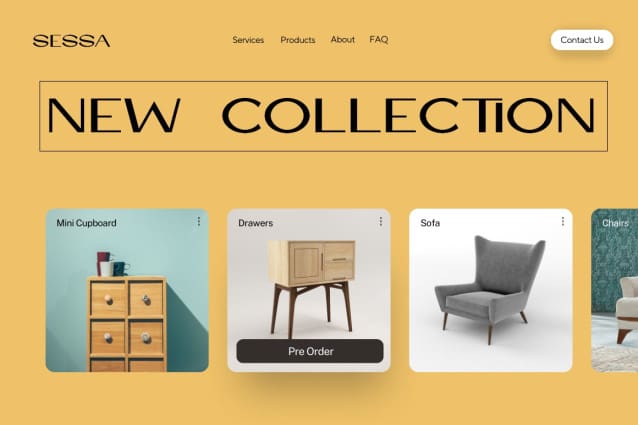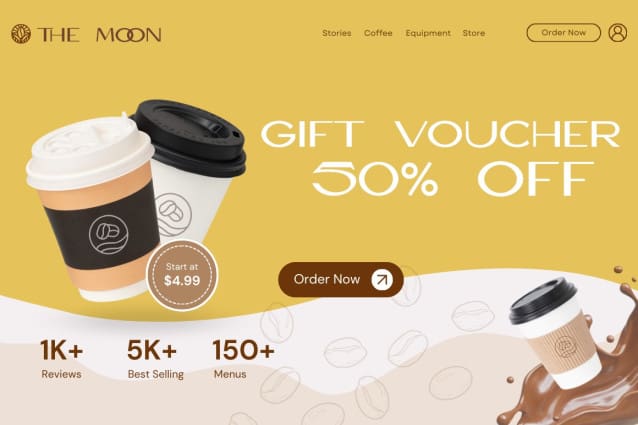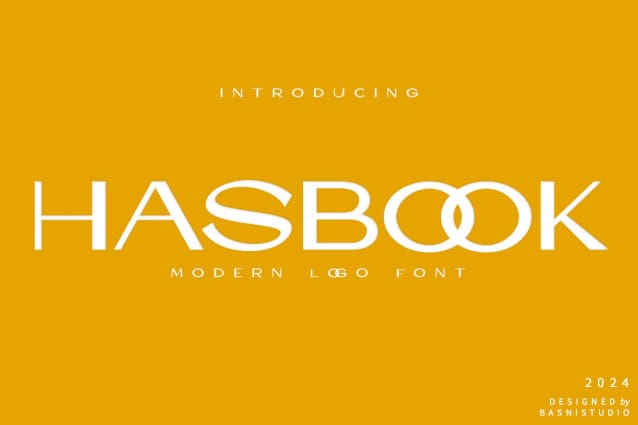
Hasbook Font
Hasbook Font – Modern Logo Font, made with Detail and Stylish, perfect for branding, websites, and editorial designs. Includes all Character letters, multilingual support, punctuation, binding. everything can be easily accessed using software that supports OpenType.